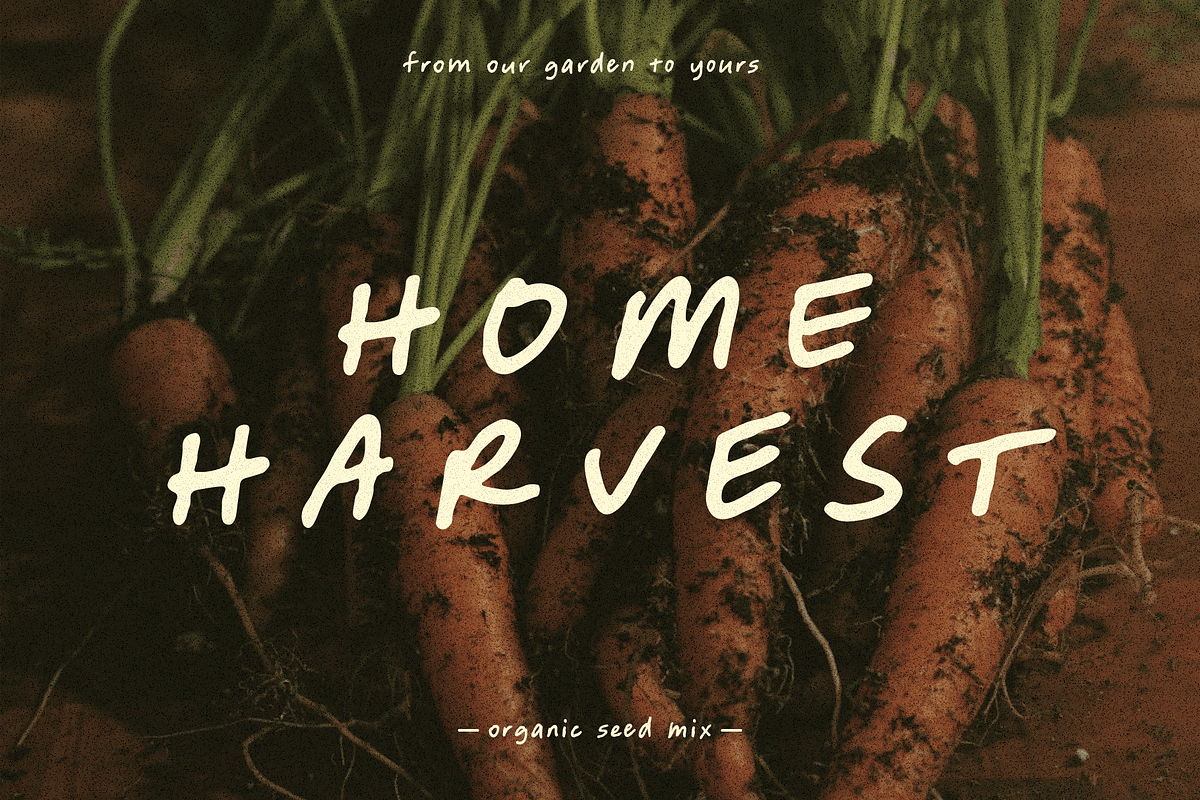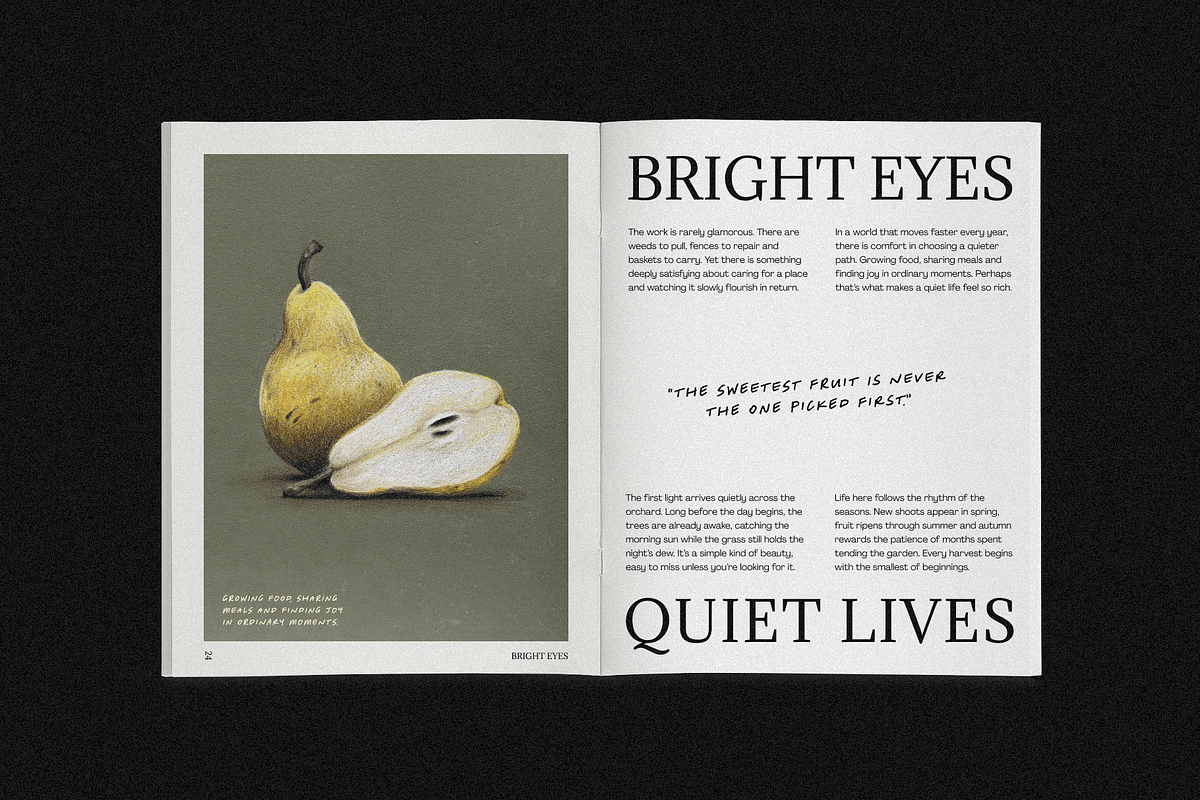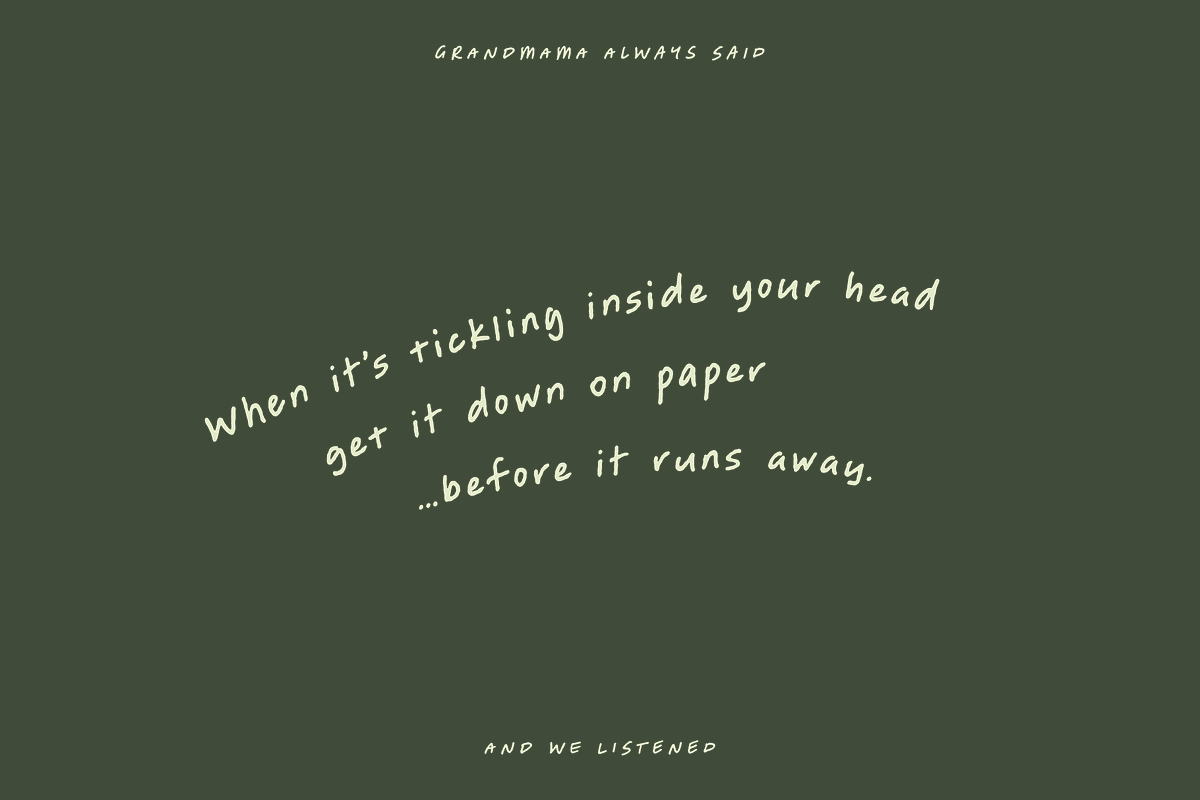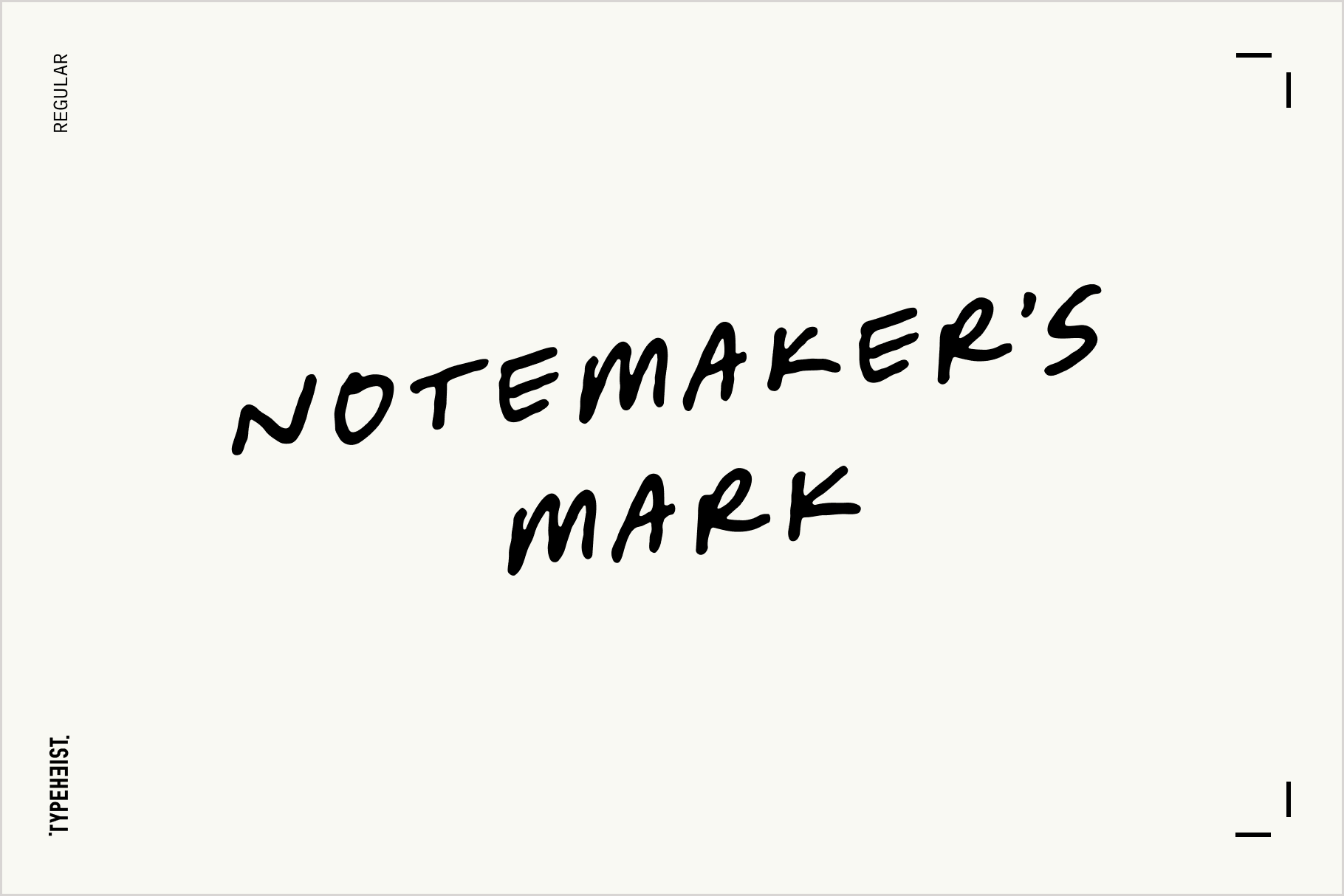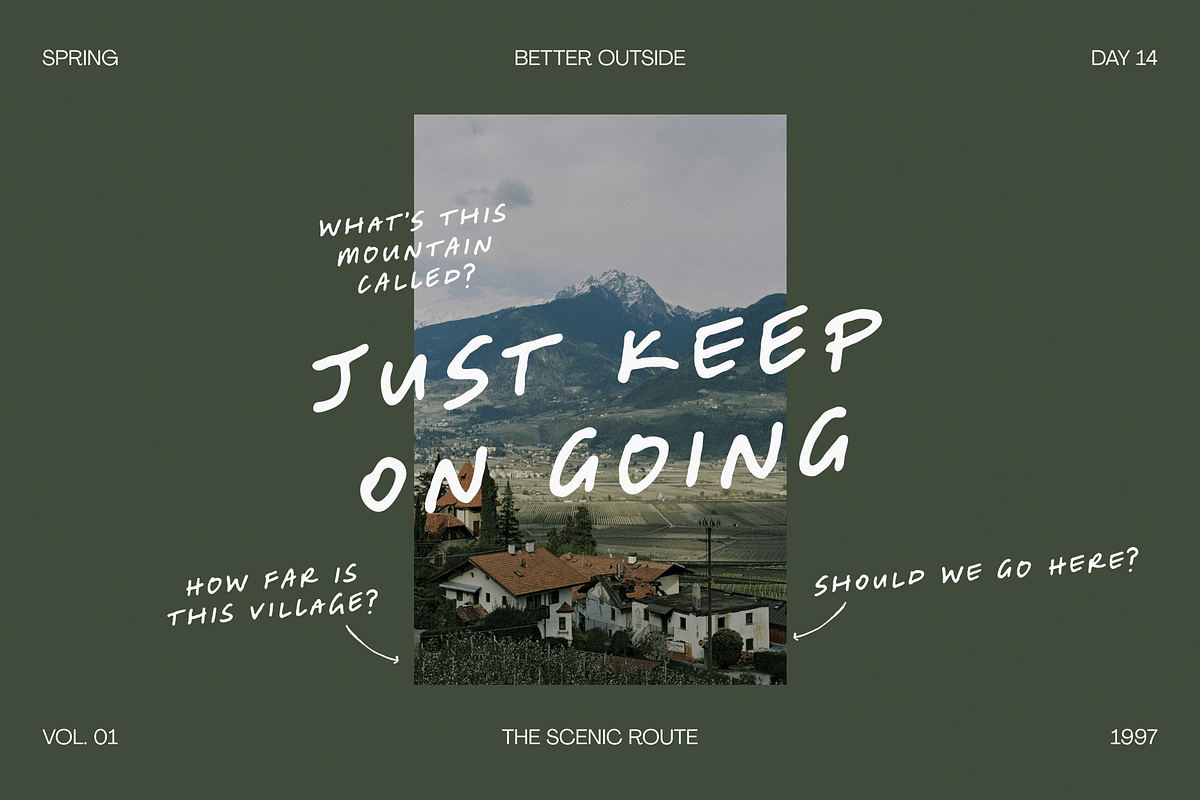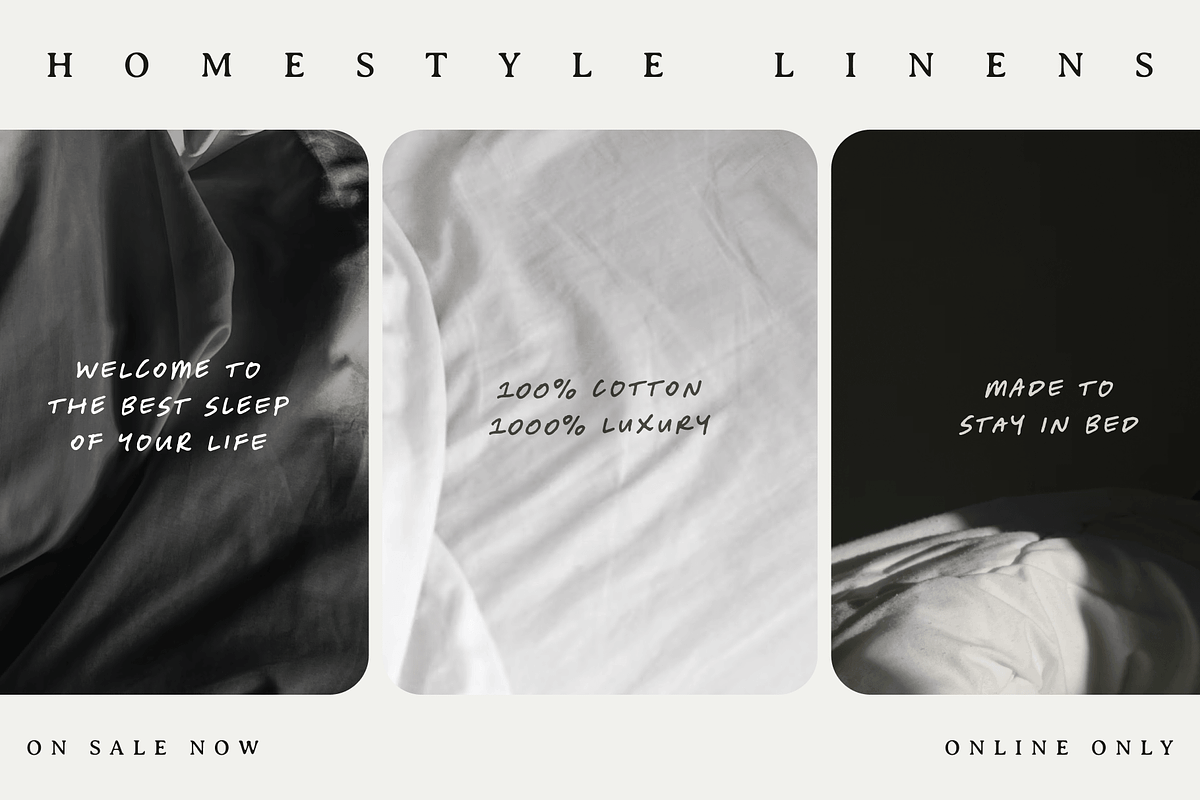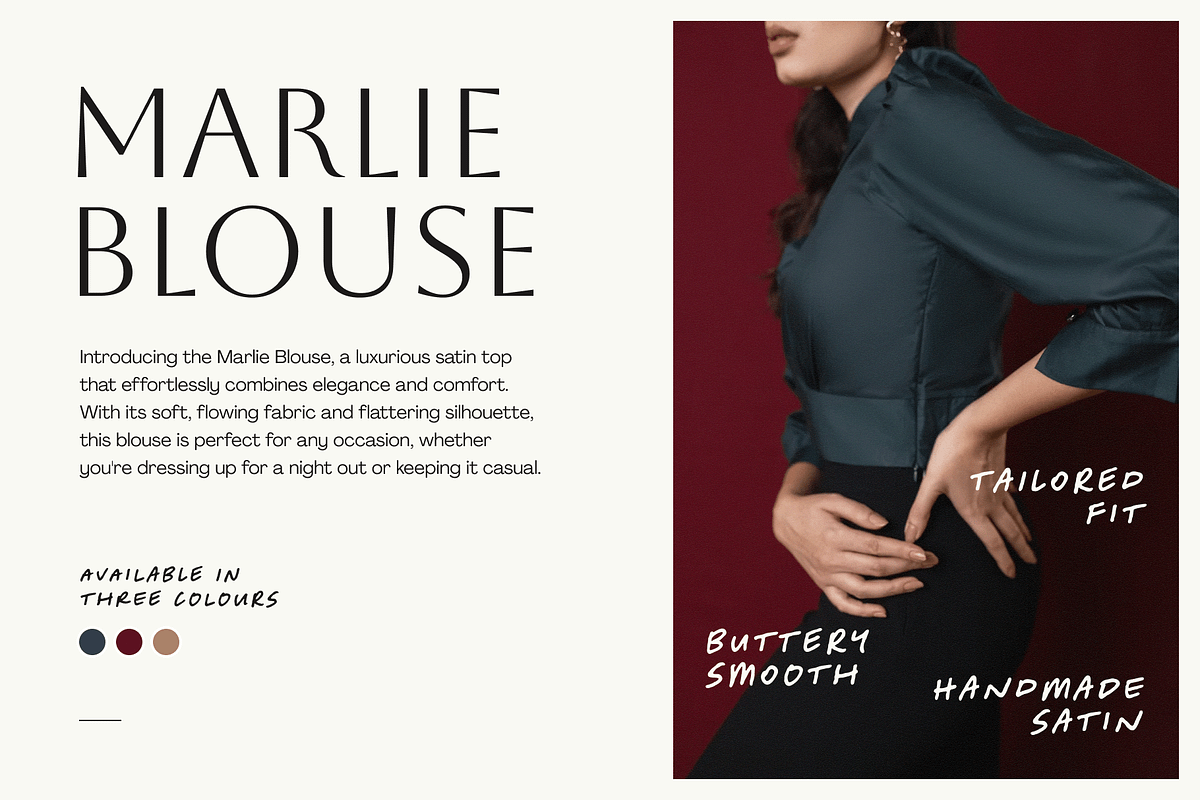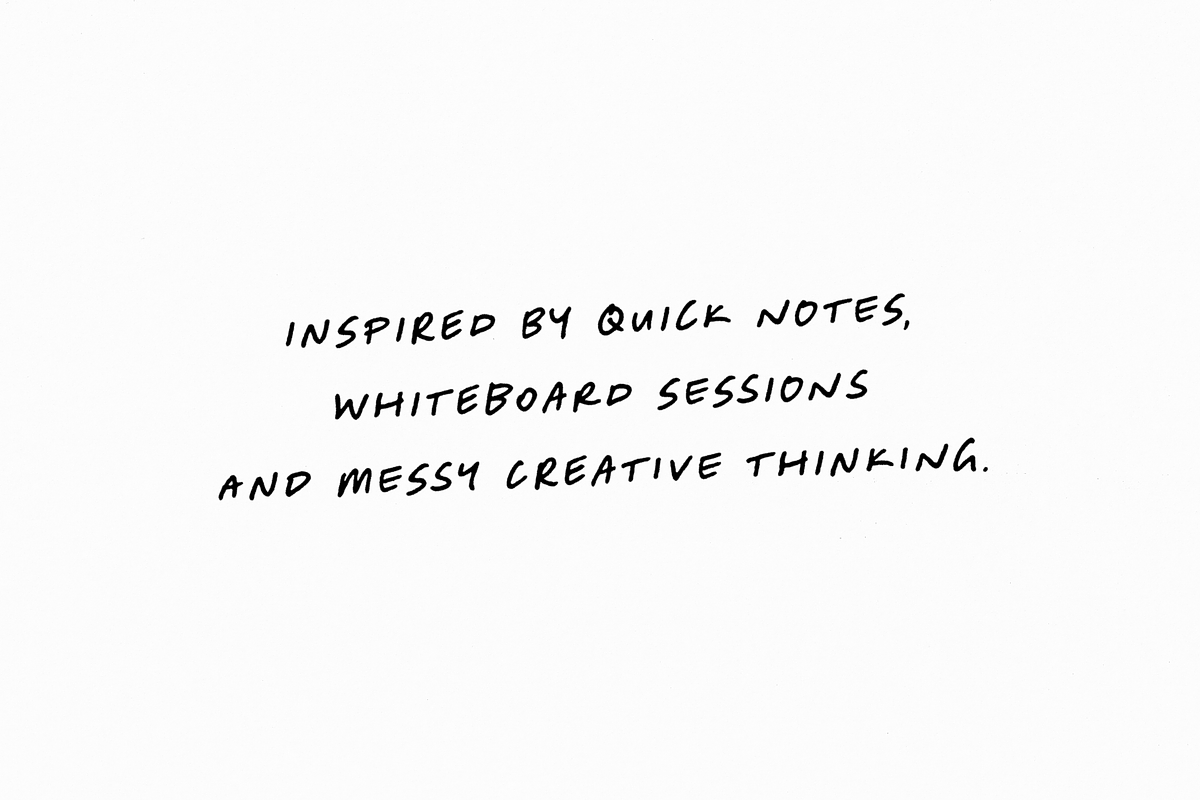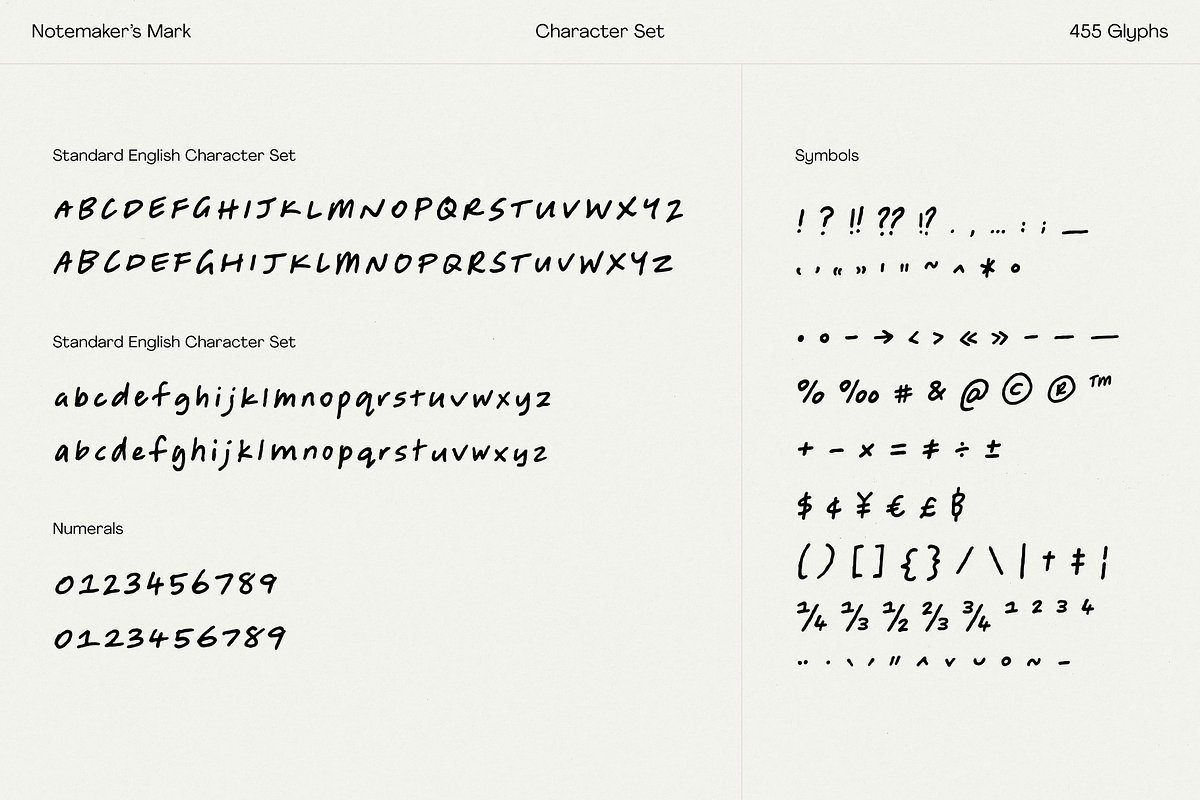
Notemaker's Mark Handwriting Font
The handwriting for ideas in motion.
Notemaker’s Mark wasn’t inspired by perfect penmanship. It was inspired by the notes you write to yourself. The ideas scribbled during meetings. The words scrawled across whiteboards, notebooks and sticky notes while you’re trying to figure things out.
Loose, expressive and full of character, it brings the feeling of genuine handwriting into branding, packaging, social content, editorial design and creative projects that need a human touch. Its forward-leaning letterforms create a subtle sense of movement and momentum, giving the font an energetic, determined personality that feels spontaneous yet purposeful.
Its letterforms are intentionally relaxed, with natural inconsistencies and movement that feel like they were written in the moment. The result is a font that feels approachable, authentic and full of personality without becoming messy or difficult to read.
Whether you’re creating a moodboard, designing packaging, building a lifestyle brand or adding annotations to creative work, Notemaker’s Mark feels right at home.
Notemaker's Mark font
A total of 455 glyphs
1 additional stylistic sets for characters A-Z, a-z and 0-9
Standard English/Latin characters
Multi-lingual accented characters (try in the tester!)